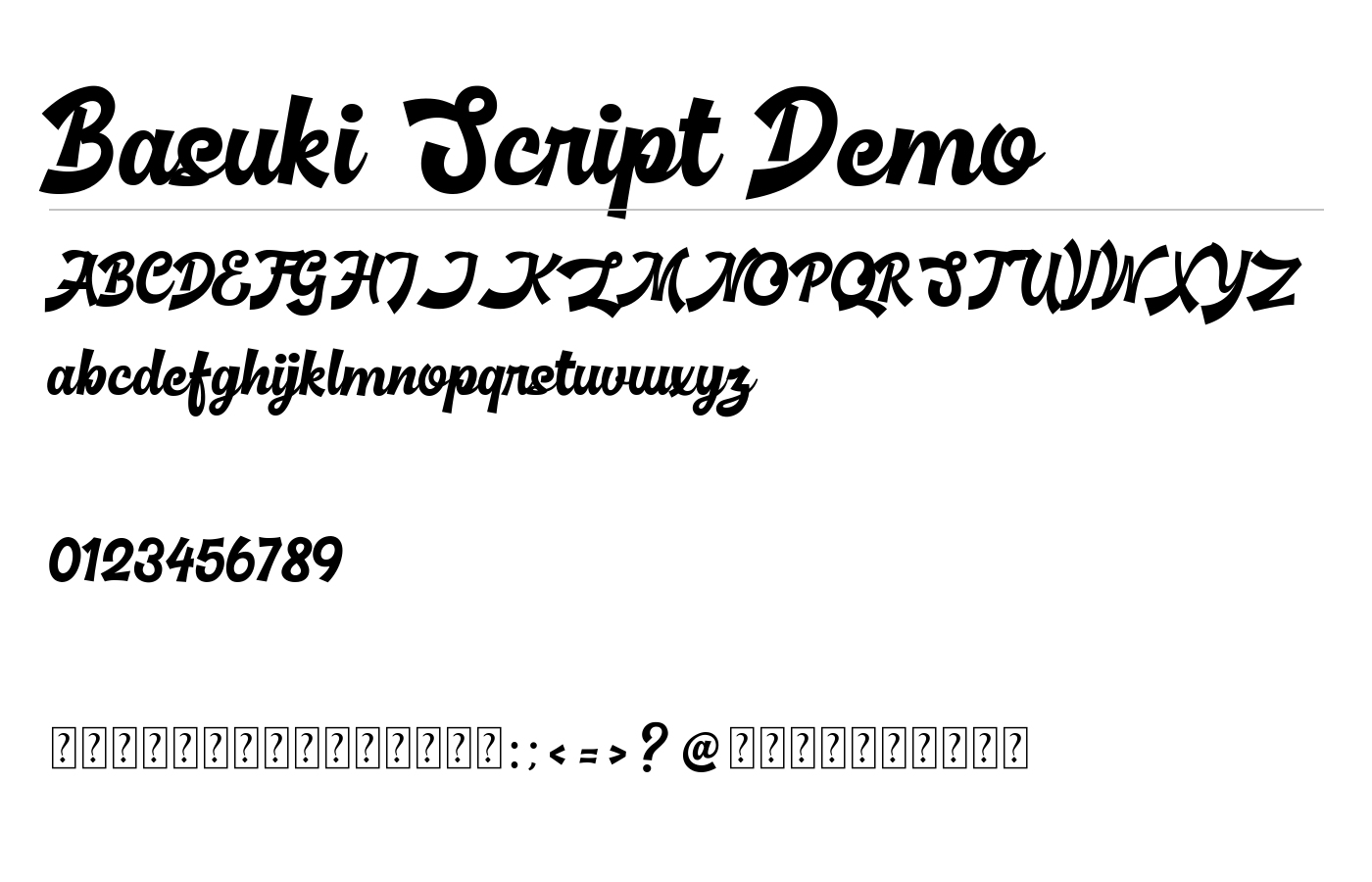
Basuki Script Demo is a bold and dynamic script font with a strong, energetic feel. Its thick strokes and slightly condensed letterforms feature distinctive, playful curves and sharp edges, giving it a modern yet handcrafted vibe perfect for eye-catching headlines, logos, and creative branding. This font works well where a lively and confident style is needed to stand out, especially in fashion, posters, or display use.
Basuki Script Demo Font
About Basuki Script Demo Font
| Font family | Basuki Script Demo Font |
| Designer | Muhammad Nur Alamsyah |